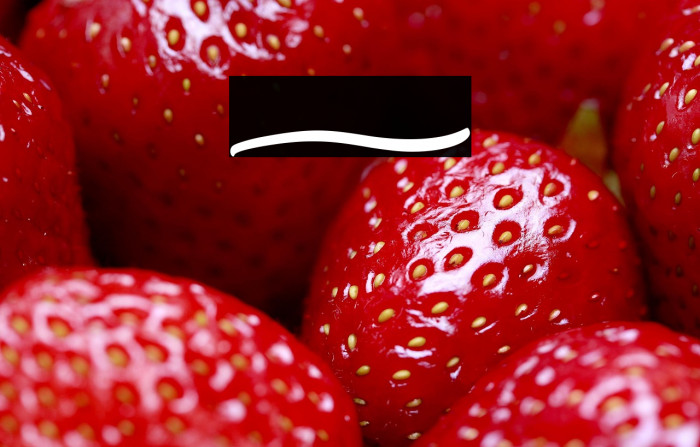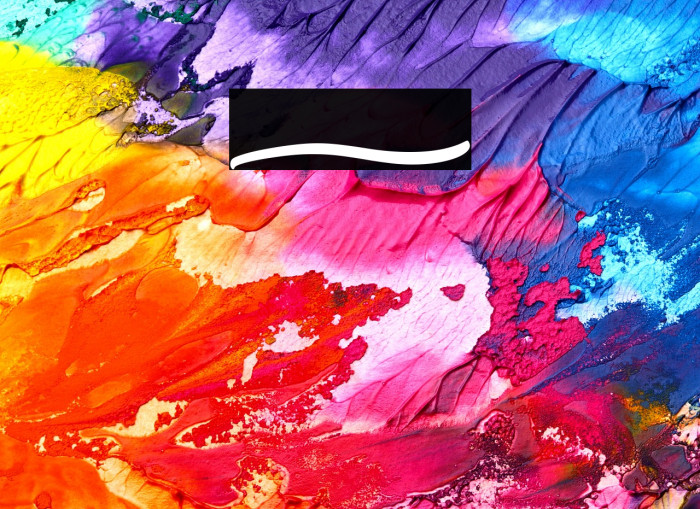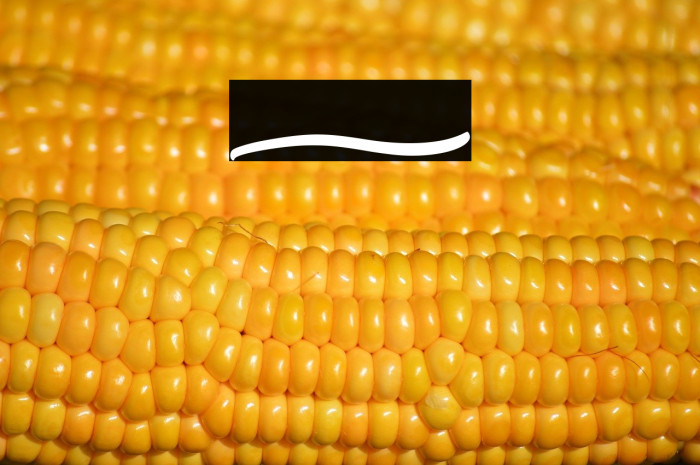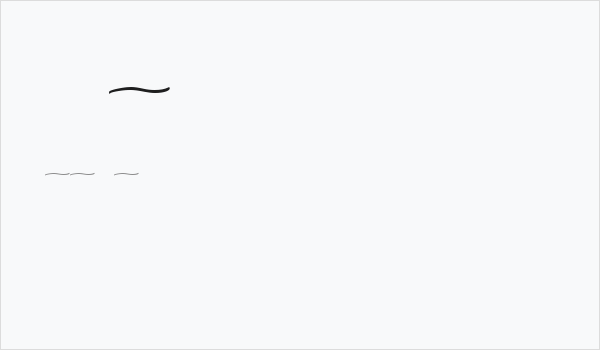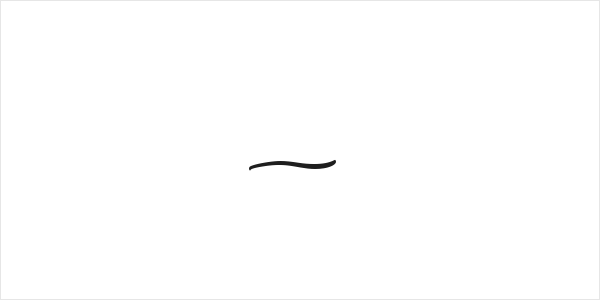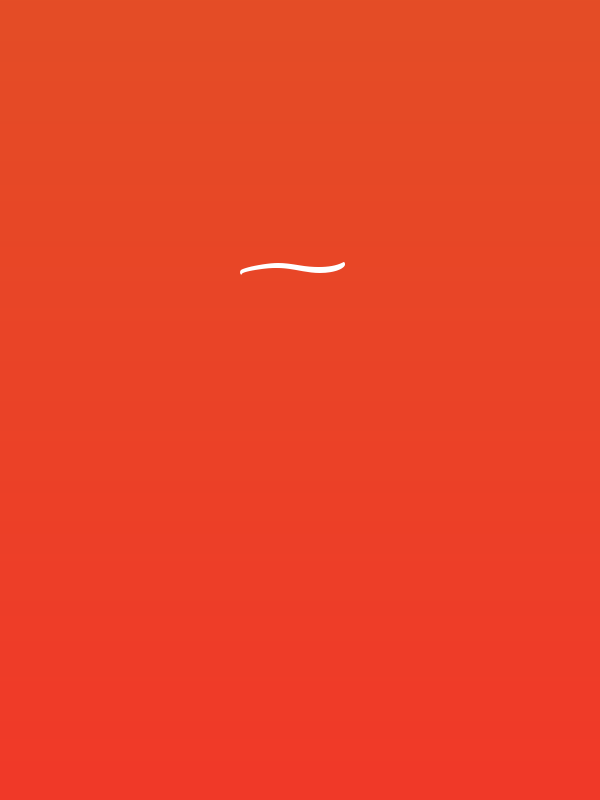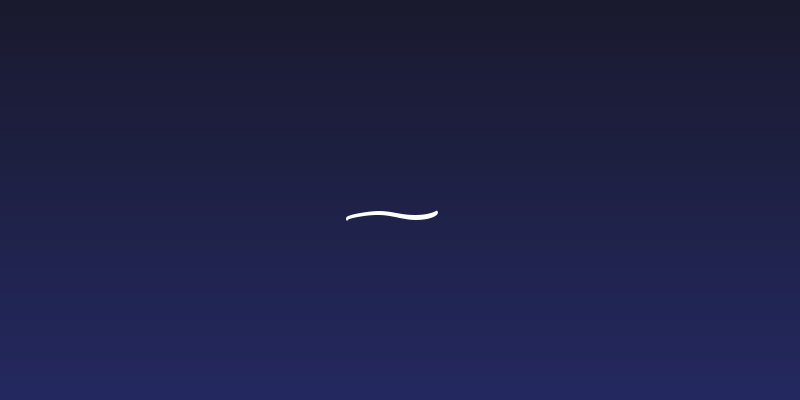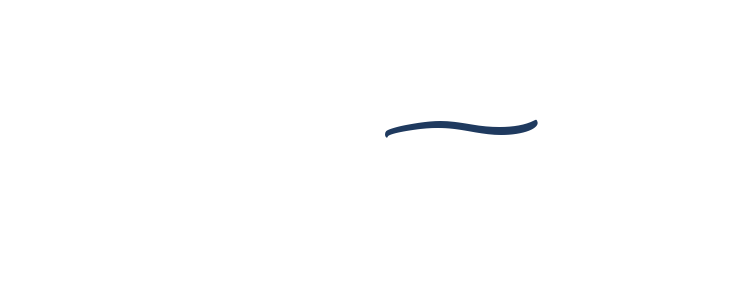
Garry Shelby Swashes Font
Garry Shelby Swashes Description
This is not a valid font. The image contains only swashes or decorative elements without any recognizable alphanumeric characters or symbols typically associated with a font set.